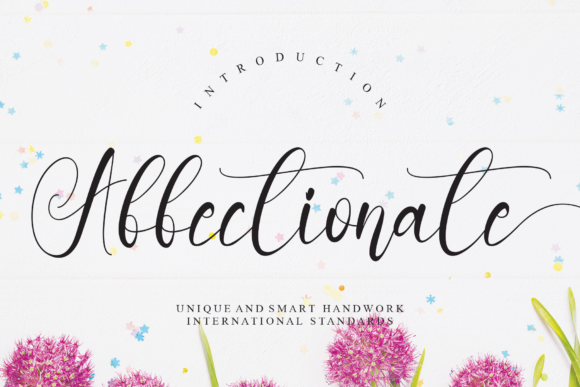
The Magical World of Affectionate Font
I’ll never forget the time I was working on a project for a client’s wedding invitation. I had a clear vision of a whimsical, romantic design, but I was struggling to find the perfect font to bring it all together. That’s when I stumbled upon Affectionate Font, a chic and whimsical handwritten font that completely transformed my design. In this article, I’ll share my experience with Affectionate Font, its unique features, and how to make the most of it in your designs.
A Personal Review of Affectionate Font
As a designer, I’m always on the lookout for fonts that can add a touch of personality to my projects. Affectionate Font did not disappoint. Here’s what I love about it:
- ✨ Unique and modern style that adds a touch of whimsy to any design
- 💫 Beautifully crafted with a range of OpenType features and glyphs
- 🎨 Versatile and suitable for a variety of design projects, from wedding invitations to branding and packaging
While Affectionate Font is an excellent choice, it’s not without its quirks. Here are a few things to keep in mind:
- 🤔 Some characters may not work well in all contexts, so it’s essential to test the font thoroughly
- ⚠️ The font may not be suitable for very formal or traditional designs, as it has a distinctly modern and playful feel
How to Use Affectionate Font in Your Designs
The Story Behind Affectionate Font
Affectionate Font was designed with love and care by a talented type designer who’s passionate about creating unique and beautiful fonts. The designer’s inspiration came from a mix of traditional and modern typography, with a focus on creating a font that’s both elegant and playful. While the designer’s story is shrouded in mystery, one thing is clear: Affectionate Font is a true gem that deserves to be showcased in your designs.
| Font Name | Affectionate Font |
| What is Affectionate Font? | Affectionate Font is a chic and whimsical handwritten font designed for creative projects. |
| Can I use Affectionate Font for my wedding invitation design? | Absolutely! Affectionate Font is perfect for wedding invitations and other formal designs. |